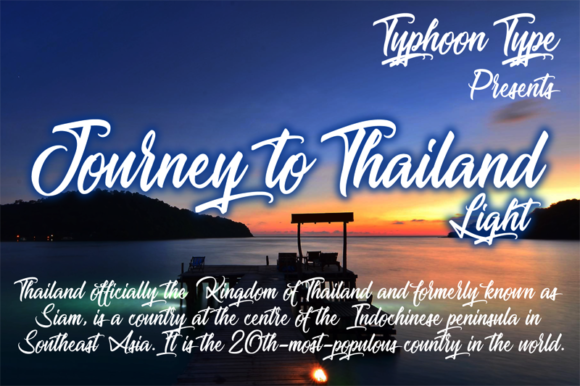
Journey to Thailand Light Font
About Journey to Thailand Light Font
Journey to Thailand Light is a beautiful, clean version of the Journey to Thailand font; this is a great display font, and works well for branding your works.